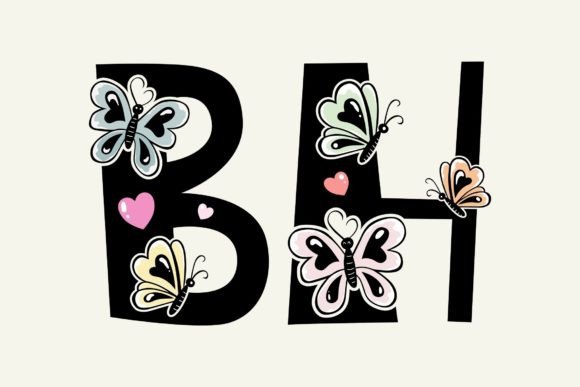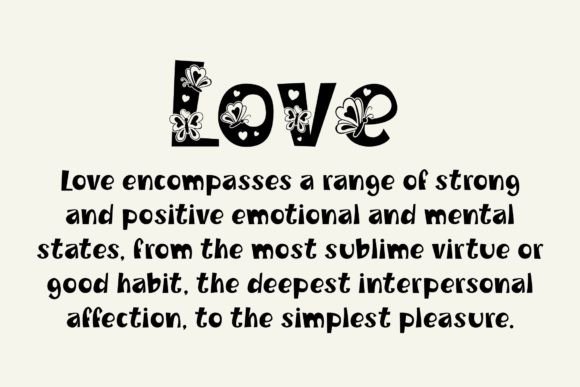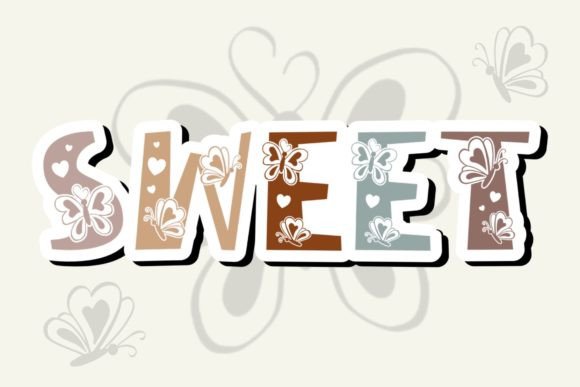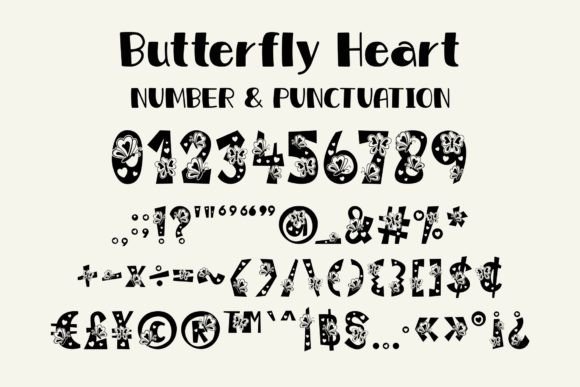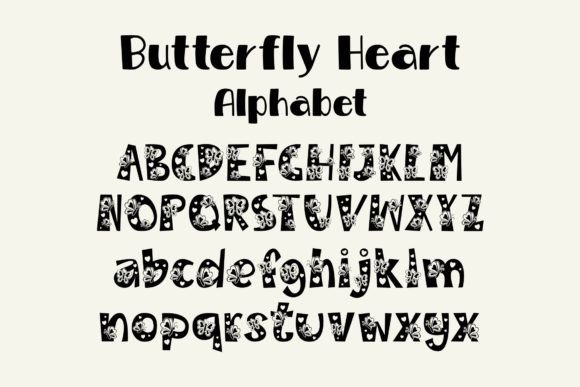
The Perfect Blend of Whimsy and Charm: Introducing the Butterfly Heart Font
Have you ever stumbled upon a font that instantly sparks your creativity and makes you want to design all day? For me, that moment came when I discovered the Butterfly Heart Font. Its delicate combination of hearts and butterflies is like a breath of fresh air for any designer looking to add a touch of playfulness to their work.
This charming duo font is designed to be used as both a decorative and display font, making it perfect for creating stunning stationery art, eye-catching social media posts, and adorable greeting cards. The Butterfly Heart Font is a valuable addition to any designer’s toolkit, offering a unique and versatile way to express themselves through typography.
Key Features of Butterfly Heart Font
- Font Family: Butterfly Heart Font is a unique, handwritten font designed to evoke the feeling of delicate, fluttering wings.
- Unique Characteristics: The font’s distinctive, flowing lines and organic shapes give it a whimsical, romantic feel, making it perfect for designs that require a touch of elegance and sophistication.
Review: Butterfly Heart Font
At first glance, the Butterfly Heart Font seems to be a charming, whimsical choice for any project. ✨ The flowing lines and subtle curves evoke a sense of elegance and sophistication, making it perfect for romantic or artistic designs. ✨ The font’s versatility allows it to be used for both body text and headlines, adding a touch of whimsy to any layout.
However, there are some limitations to consider: ⚠️ The font’s complexity can make it difficult to read at smaller font sizes, and the irregular shape of the characters can make it challenging to pair with other fonts. Additionally, the font’s design can be overwhelming if used extensively throughout a design, so it’s best to use it in moderation.
- Whimsical, elegant design ✨
- Flows well for body text and headlines
- Perfect for romantic or artistic designs
- Complexity can make it difficult to read at smaller font sizes ⚠️
- Irregular shape can make pairing with other fonts challenging ⚠️
In conclusion, the Butterfly Heart Font is a beautiful and charming choice for the right project. While it may have some limitations, its unique design and versatility make it a great addition to any designer’s toolkit. With careful consideration and use, this font can add a touch of magic to any design.
Tips for Getting the Most Out of Butterfly Heart Font
For best results, use the Butterfly Heart Font in a clear and simple design. Avoid using it in small font sizes or with too much text.
The Butterfly Heart Font is commonly used for:
- Wedding invitations and decorations
- Baby shower invitations and decorations
- Valentine’s Day cards and decorations
- Other occasions that require a touch of whimsy and romance.